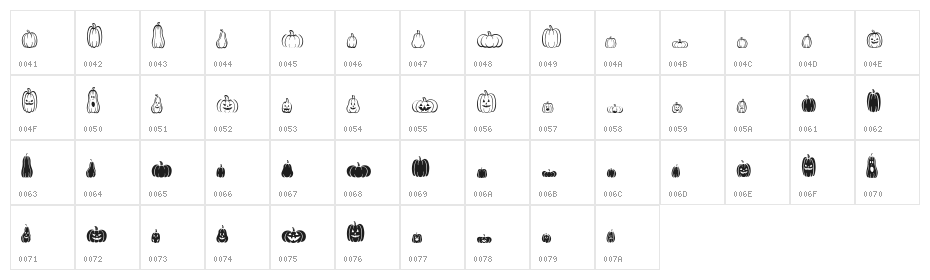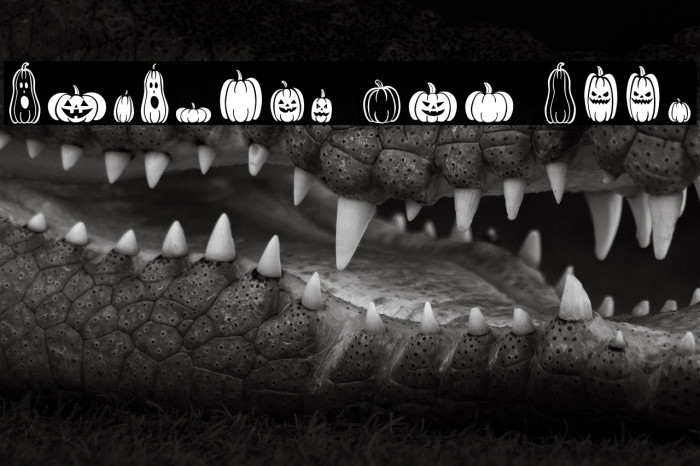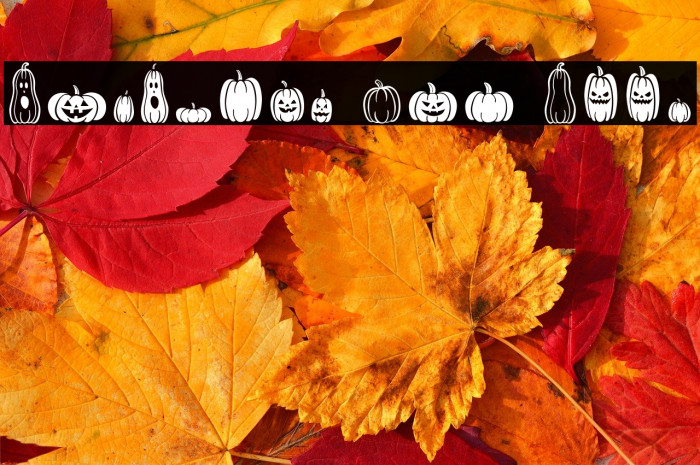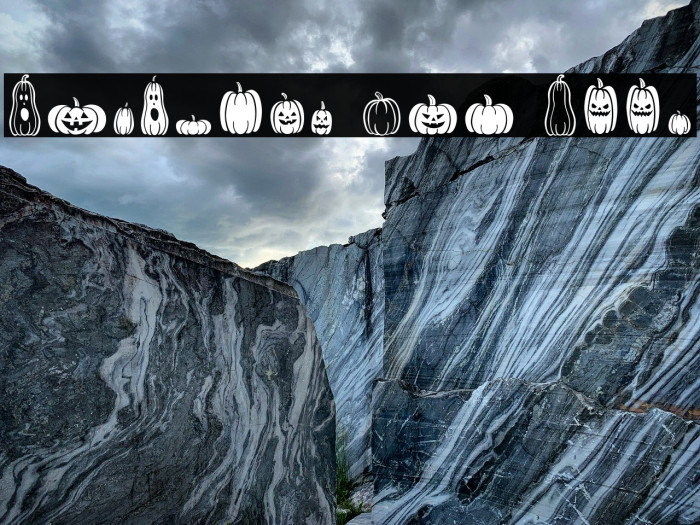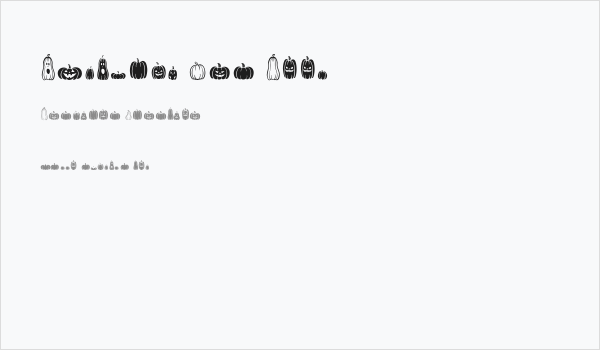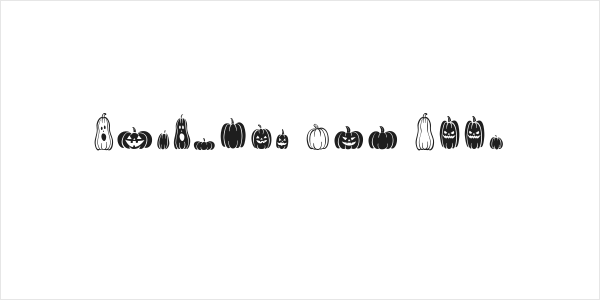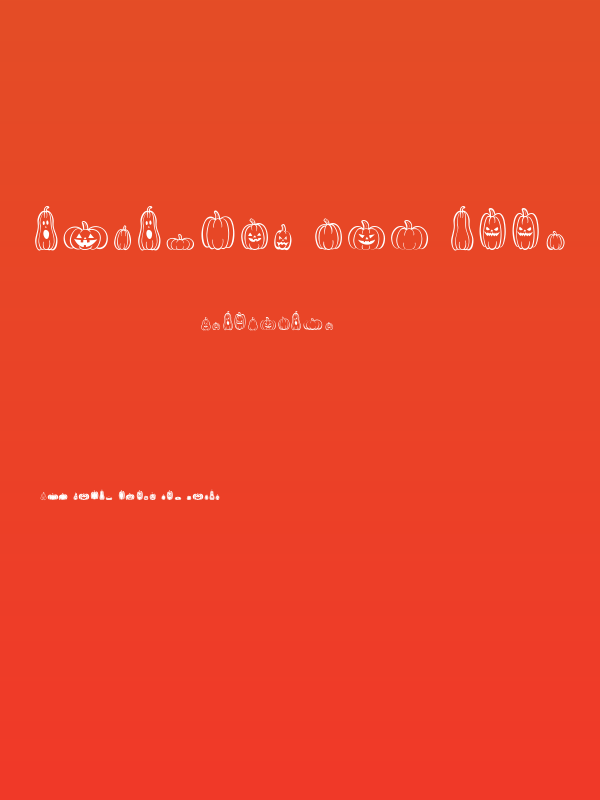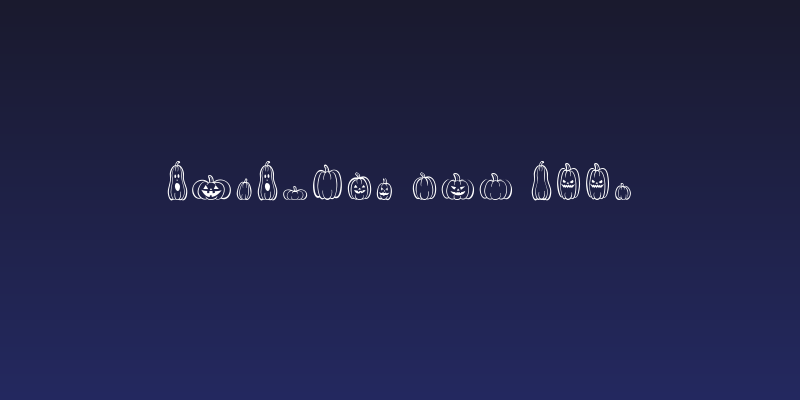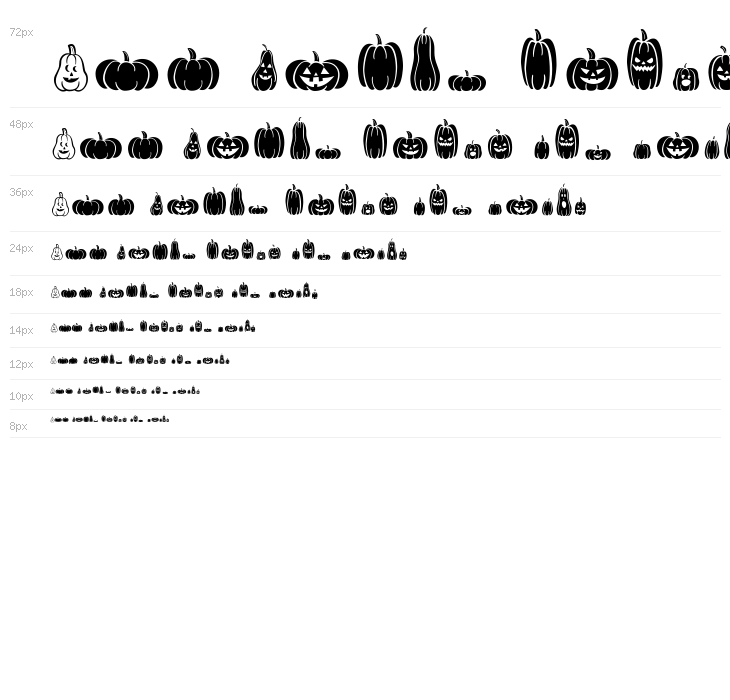
Pumpkins Are Cool Font
Pumpkins Are Cool Description
A playful decorative font composed of hand-drawn pumpkin illustrations, both solid and outlined, some featuring jack-o'-lantern faces. Each character is represented by a unique pumpkin or gourd shape, giving the font a whimsical, seasonal feel ideal for autumn or Halloween themes.
| Overall Style | Decorative, Playful, Seasonal |
| Use Case | Headlines, Logos, Themed graphics |
| Proposed Projects | Halloween invitations, seasonal posters, party flyers, children's event materials, themed social media graphics. |